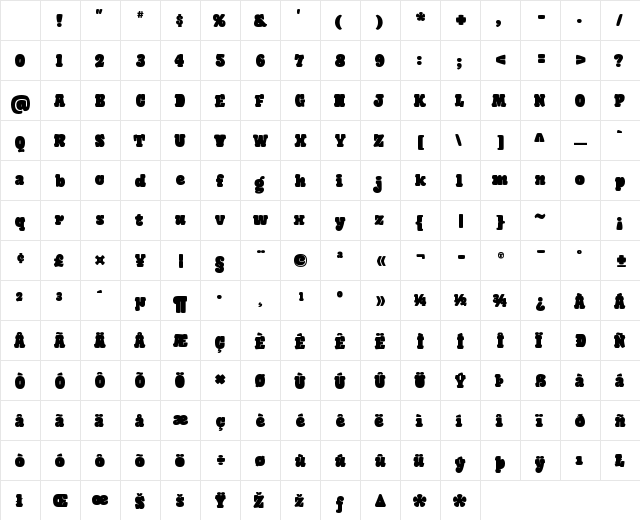
Giant Head is a composed and adaptable typeface that performs quietly and consistently across a wide range of design contexts.
Pro Tip: Use Giant Head in both headline and body roles to test its range before committing to a single application.